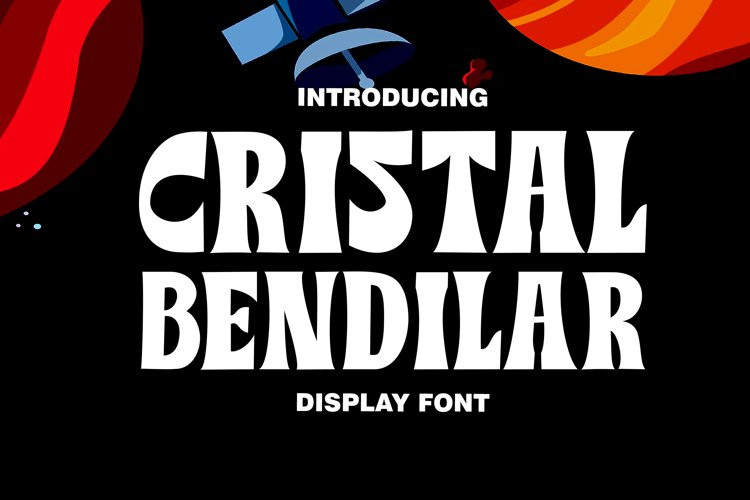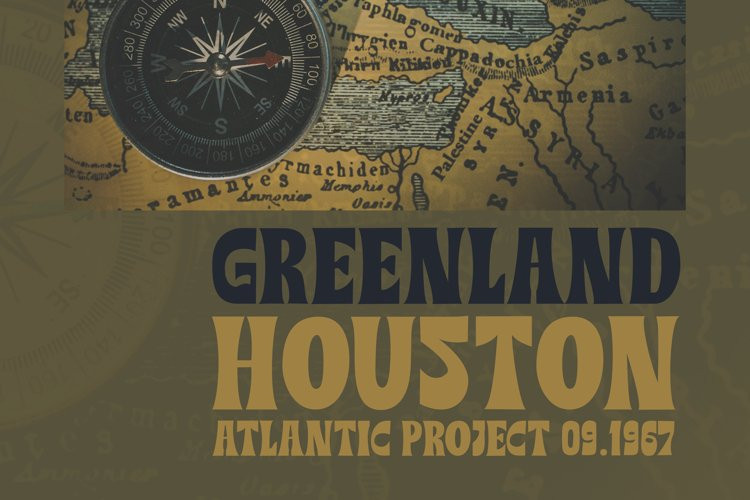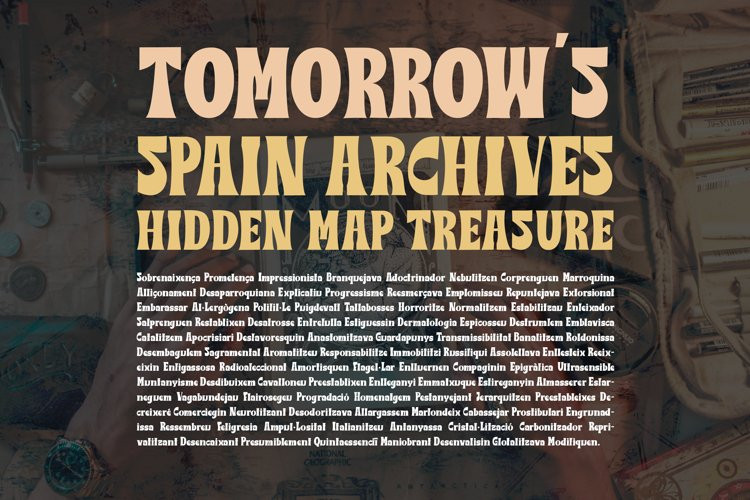
Cristal Bendilar Font
Cristal Bendilar FontCristal Bendilar, Display Typography with Variable Weight and Width.
Cristal Bendilar is an elegant modern variable font. It’s basically Sans with a touch of serif to each letter. A Simplicity yet very legible with various widths and weights that you can explore, combine, create and help you design things.
Font Styles on OTF files or even more if you use Single File Variables, you can shift weight and width in the sweetest places in Cristal Bendilar.